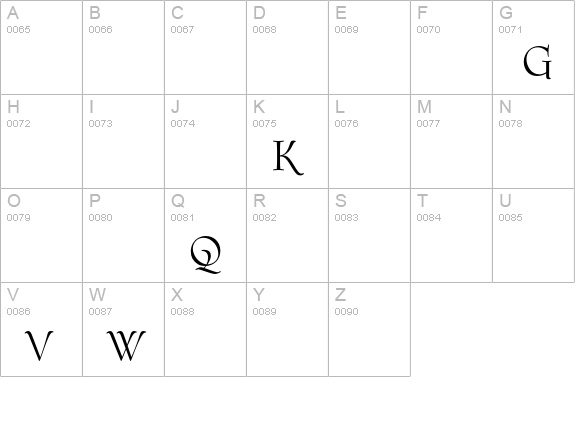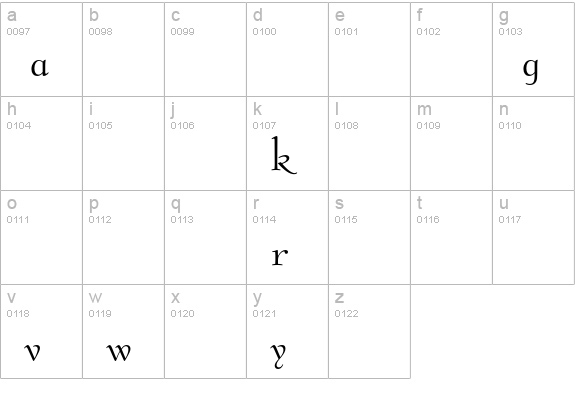
Bernhard Modern Alternate Font Details
Bernhard Modern Alternate font is a sophisticated and elegant typeface that exudes timeless charm and classic appeal. With its clean lines and distinctive letterforms, this font is perfect for adding a touch of refinement to any design project. Whether you're working on branding, editorial design, or invitations, Bernhard Modern Alternate font will surely make a lasting impression. The best part is that Bernhard Modern Alternate font is available for free download at FontsMarket.com. This means you can easily access this high-quality font and use it in your projects without any cost. Don't miss out on the opportunity to elevate your designs with the beauty and versatility of Bernhard Modern Alternate font. Download it now and let your creativity shine!